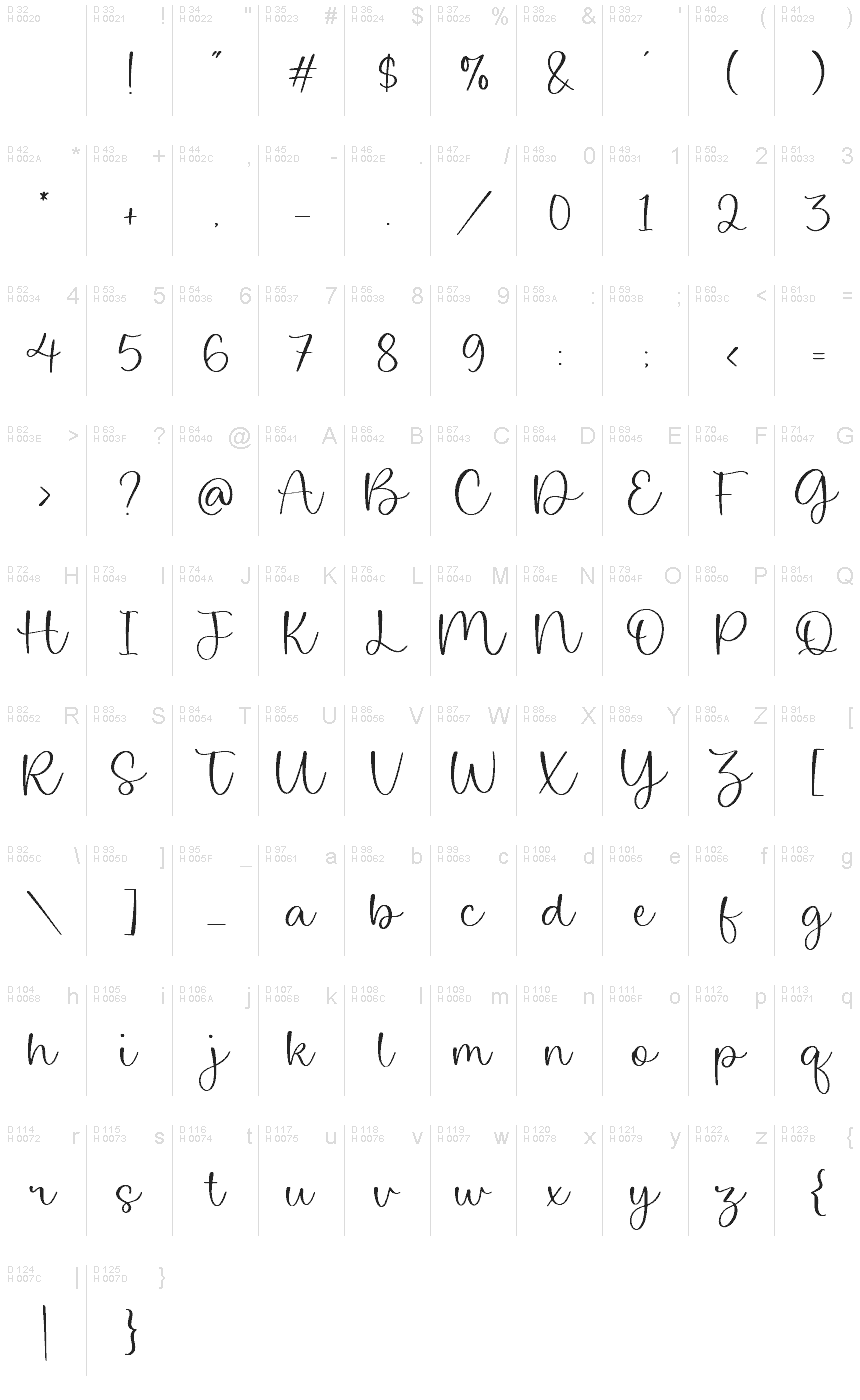
Creativa
Creativa font is a free handwritten font designed by Balpirick Studio. The elegant flowing script letters beautifully arranged and connected will give your texts a creative artistic sense. Use the expressive handwriting style for headings that you’d want to give some personal touch too, whether these are of professional or informal nature.
This modern script font is perfectly suitable for adding flamboyance to simple logotypes, typography artworks, prints on t-shirts, greeting card designs, invitations for weddings/parties and upscale packaging design projects. Take advantage of its versatility to get absolute stunning results in almost any design project you’re working on!